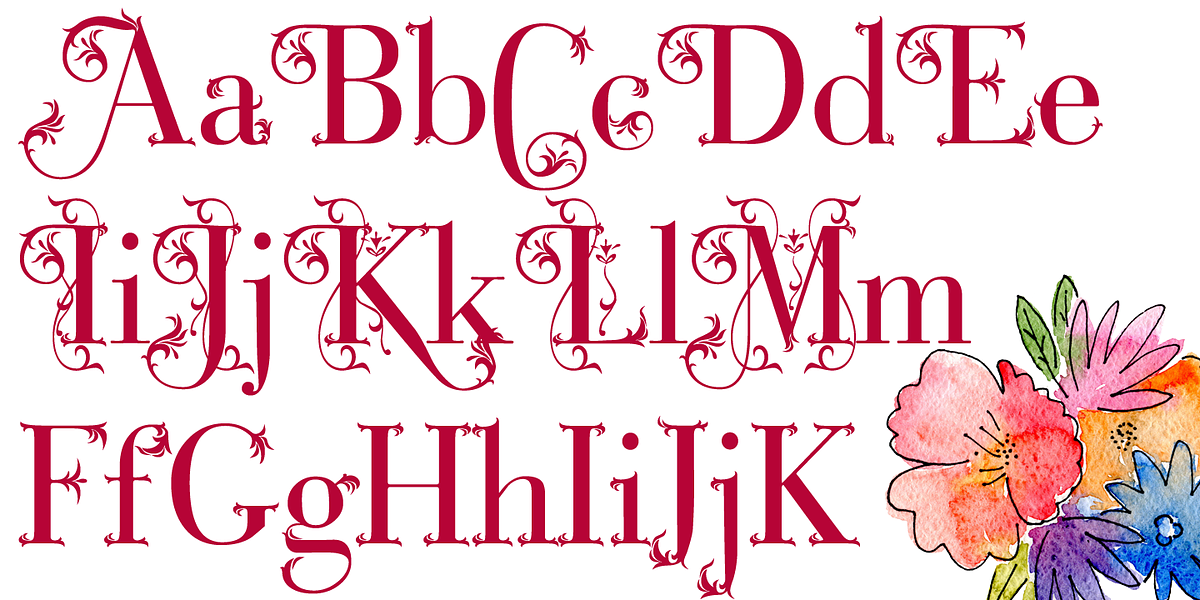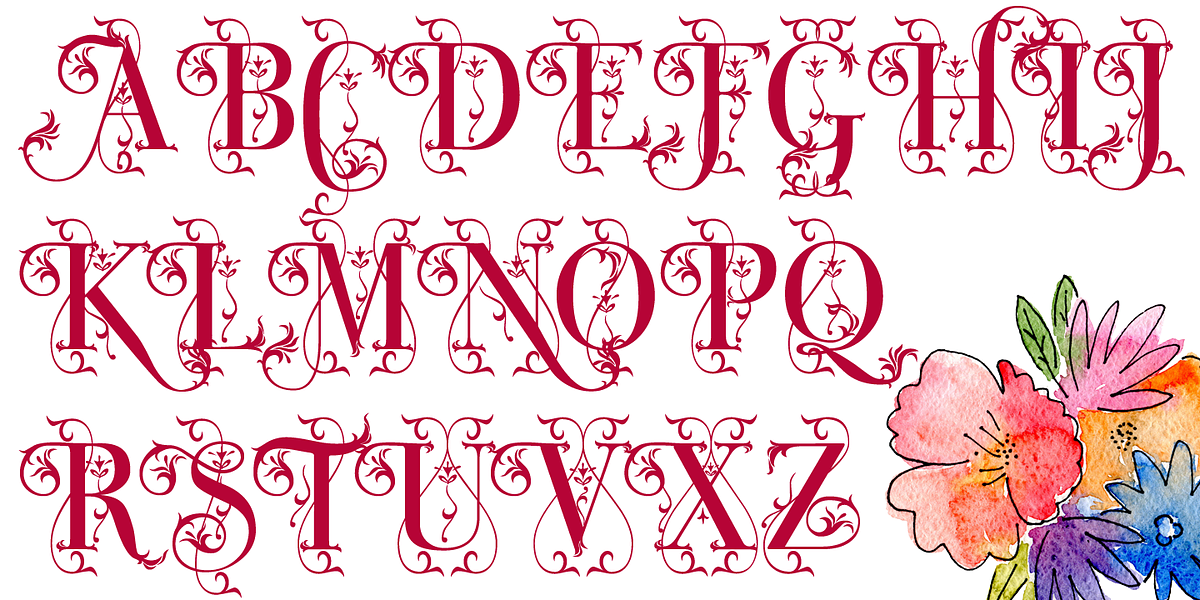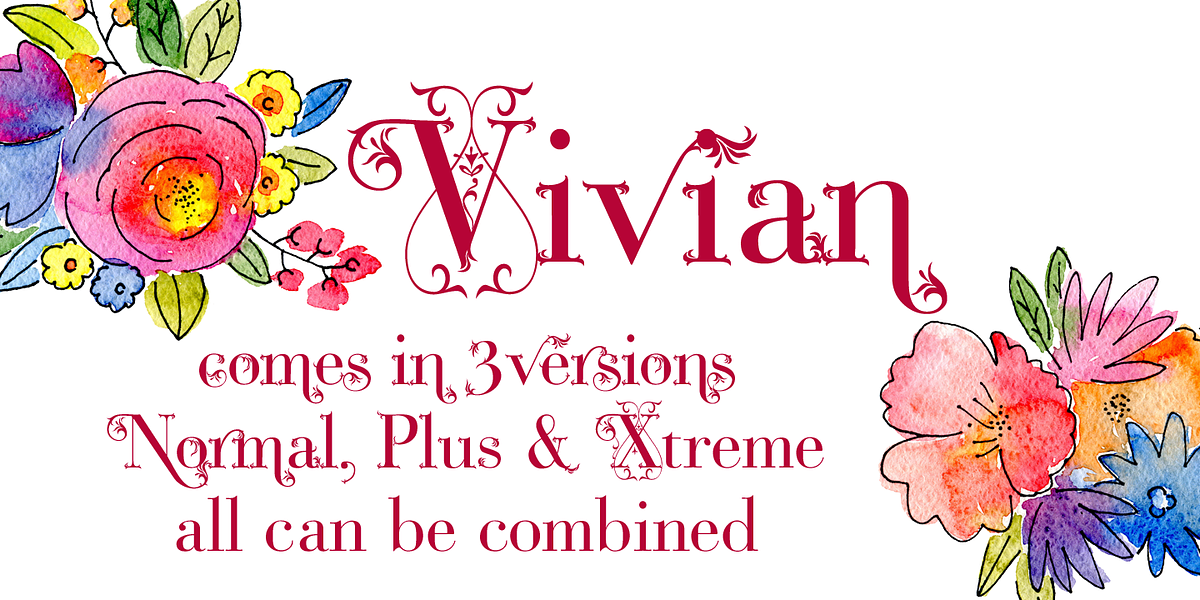
Vivian
This typeface is a serif font characterized by its elaborate decorations and flourishes. It draws inspiration from the classic Bodoni typeface, known for its sharp serifs and high contrast. The font's ornate details make it suitable for display purposes, such as headlines or titles.